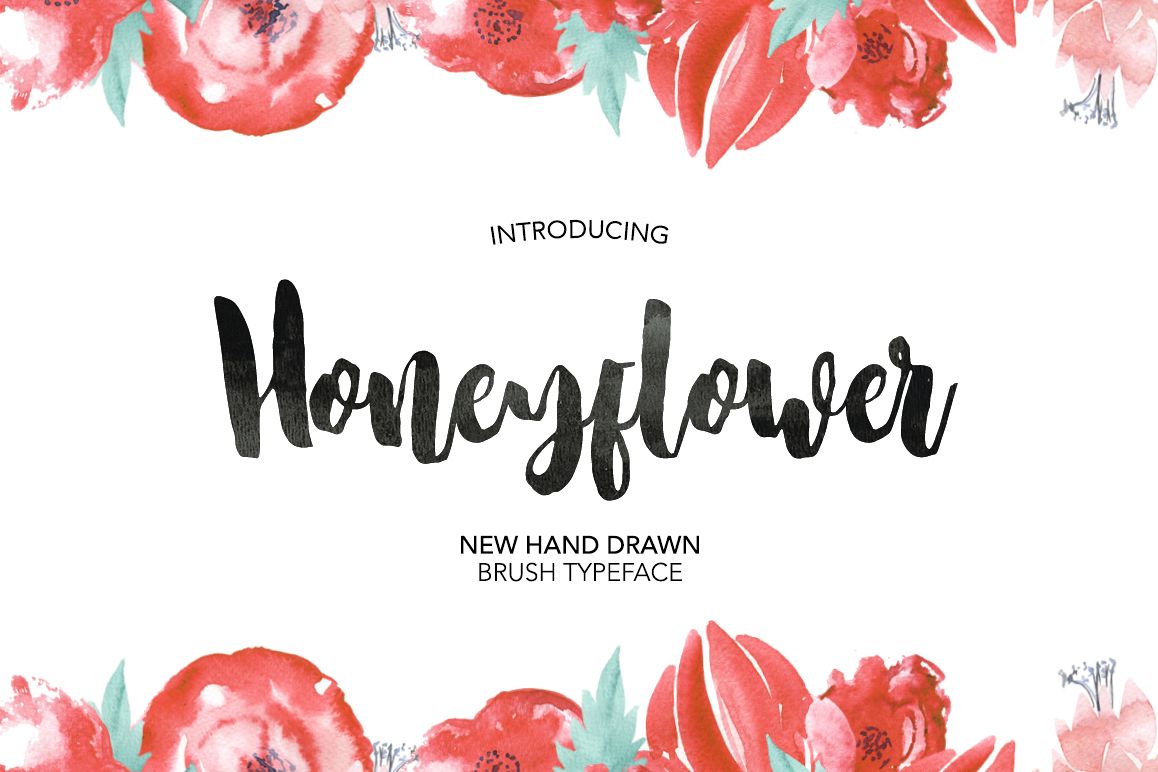
Honeyflower handwritten script
I represent to your attention an incredible 100% handwritten font. Very suitable for the design of logos, creation of invitations, greeting card and more.
• Support ALL European Languages